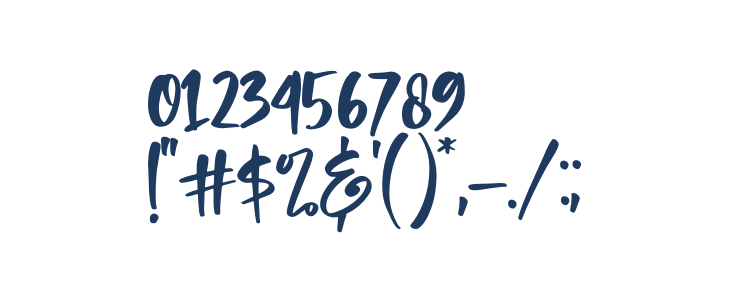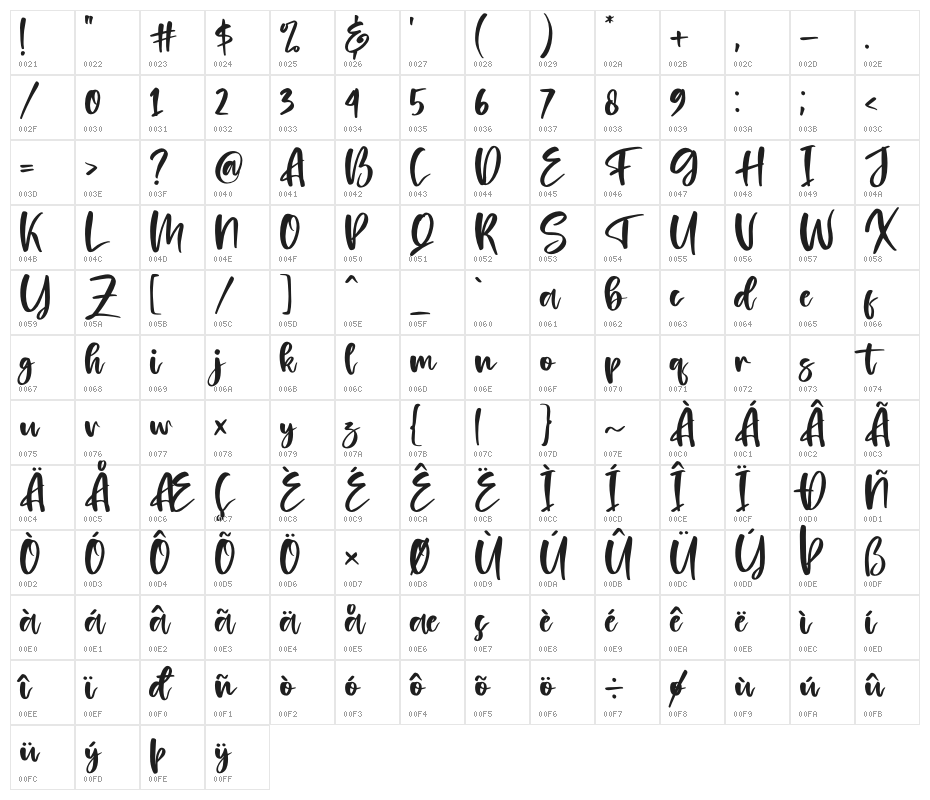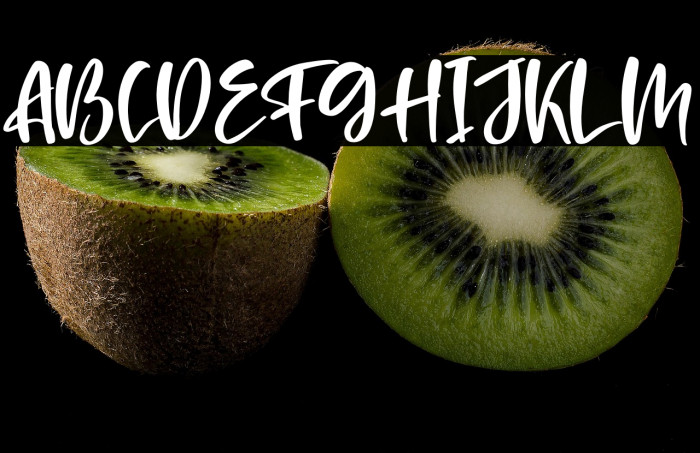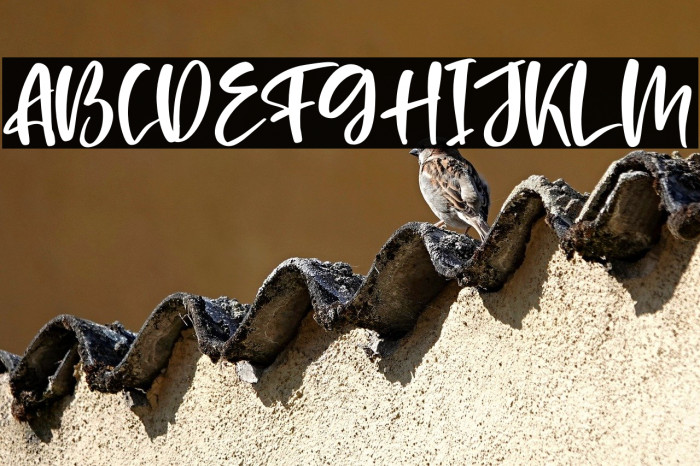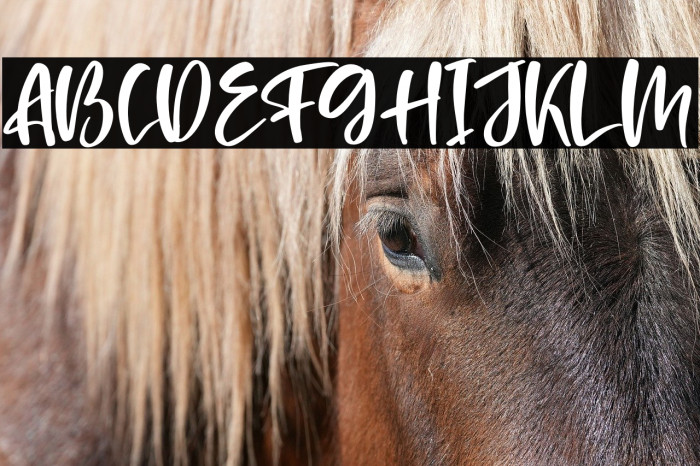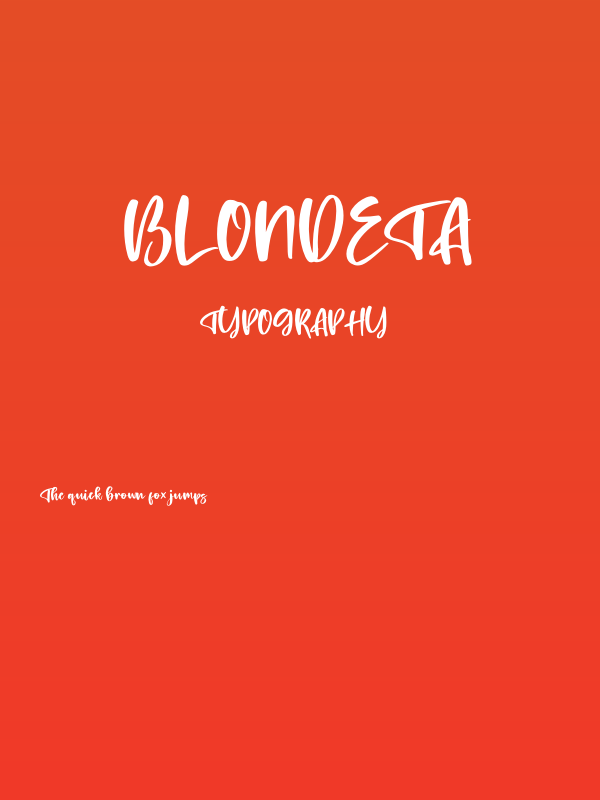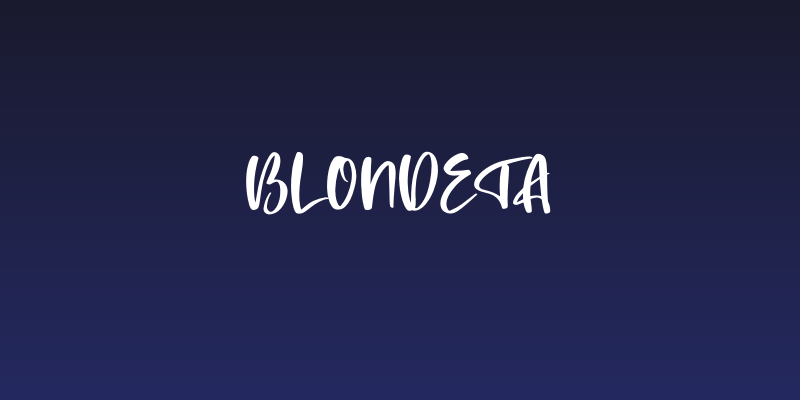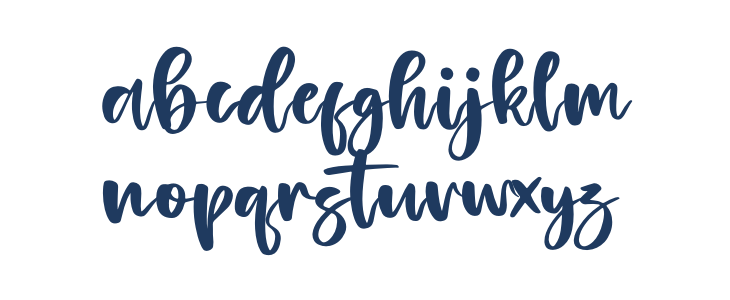
Blondeta Font
Blondeta Description
This font features a bold, handwritten style with a playful and energetic flair. The letters are characterized by their fluid, cursive strokes that give a sense of movement and dynamism. The uppercase letters are slightly larger and more pronounced, while the lowercase letters maintain a consistent flow. Numbers and special characters are integrated seamlessly, maintaining the font's overall aesthetic. The strokes are thick, providing a strong visual impact, and the character spacing is relatively tight, enhancing the cohesive look. This font is ideal for projects that require a personal, informal touch.
| Proposed Projects | Ideal for greeting cards, invitations, branding, and social media graphics. |